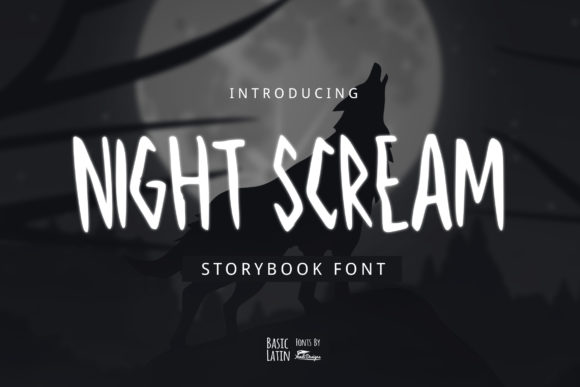
Journey into the realm of the macabre with Night Scream, the horror display font born from the depths of YandiDesigns. This font, with its spine-chilling aura, is not for the faint of heart. Its eerie charm will cast a spell on your designs, leaving an unforgettable mark on your audience.
Are you seeking a font that embodies the essence of fear and the supernatural? Night Scream is your answer. Its jagged edges and sharp, angular strokes are reminiscent of a nightmare come to life. It's a perfect choice for creating designs that evoke a sense of mystery, suspense, and horror.
Unleash your creativity and conjure up designs that will send chills down the spines of your viewers. Night Scream is ideal for creating movie posters, Halloween flyers, horror-themed merchandise, and anything else where a touch of the macabre is desired.
This captivating font can also add a chilling touch to social media posts, website designs, and even tattoos. Imagine the impact of a haunting quote or phrase rendered in Night Scream. It's guaranteed to leave an indelible impression.
With Night Scream, you're not just downloading a font; you're embracing a world of darkness and intrigue. It's a font that dares to be different, to stand out from the crowd. It's a font that will make your designs scream with personality.
Don't miss this opportunity to add Night Scream to your font collection and embark on a journey into the unknown. Its unique style and undeniable charm are sure to make it a go-to choice for all your horror-inspired projects. Embrace the dark side and watch as your designs take on a life of their own.